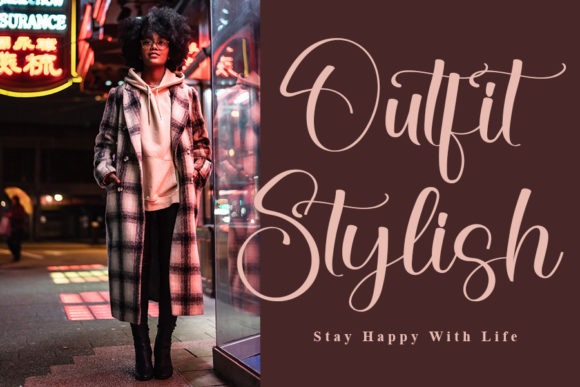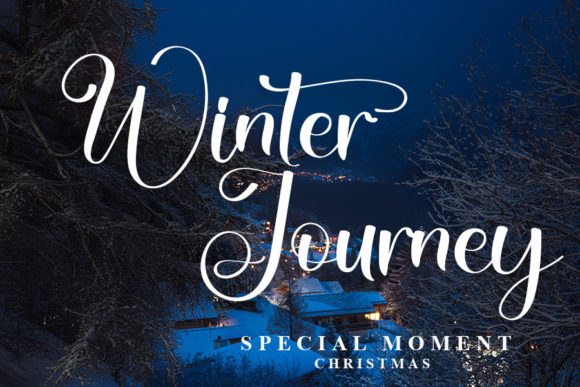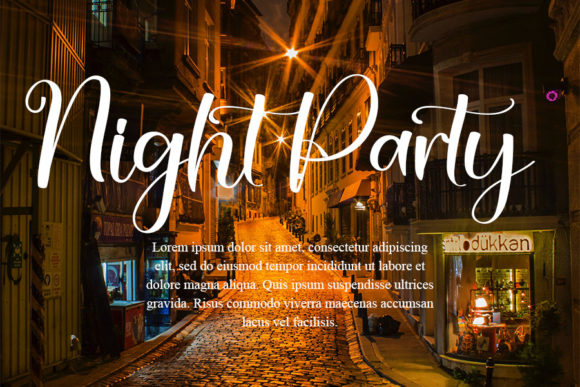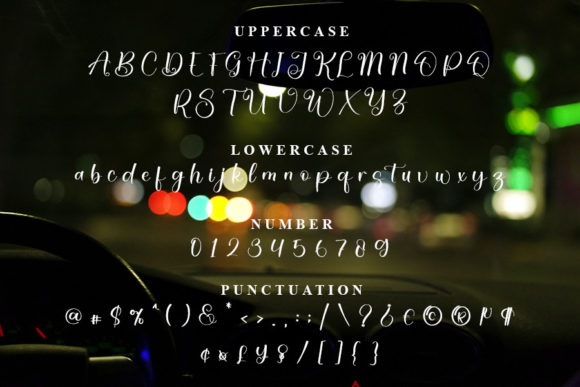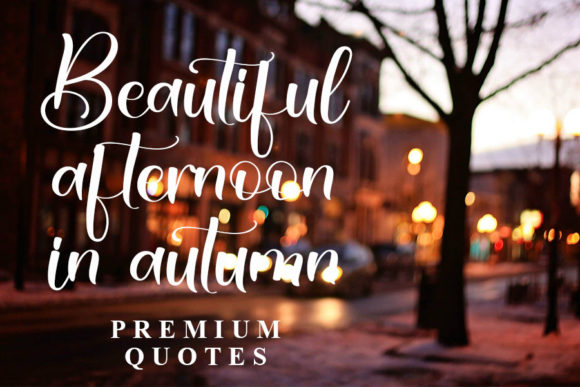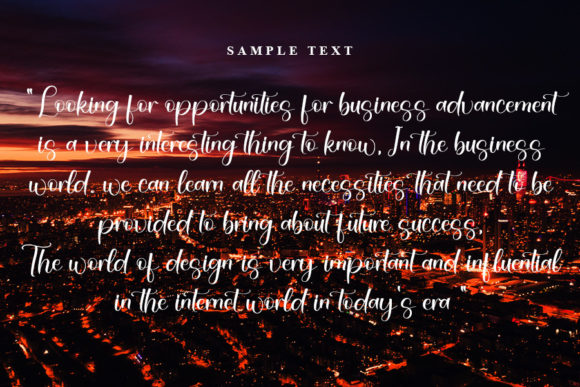
Introducing Hacktown Font: Elevate Your Designs with Timeless Elegance
In the world of typography, a font can make or break the aesthetic of a project. For designers and crafters seeking a stylish and contemporary handwritten font, Hacktown Font is an exceptional choice. Inspired by the elegance of classic calligraphy, Hacktown offers a balanced and varied design that enhances the beauty of any project.
The Inspiration Behind Hacktown Font
Hacktown Font draws its inspiration from timeless classic calligraphy, bringing a touch of sophistication and refinement to modern designs. The creators of Hacktown aimed to craft a font that not only pays homage to traditional calligraphy but also meets the demands of contemporary design. The result is a stylish handwritten font that exudes a sense of elegance and poise.
Key Features of Hacktown Font
- Contemporary Atmosphere: Hacktown Font boasts a modern and fresh feel, making it perfect for designers looking to add a touch of sophistication to their work.
- Impeccable Form: The font’s precise and clean lines ensure that it remains legible and visually appealing, even at smaller sizes.
- Balanced and Varied: Hacktown offers a range of characters and ligatures, allowing designers to create unique and engaging text that flows smoothly.
- Handwritten Style: The font’s handwritten style adds a personal touch to any project, making it ideal for use in creative and artistic endeavors.
Uses for Hacktown Font
Hacktown Font’s versatility makes it suitable for a wide range of applications, including:
- Branding and Logo Design: Create a lasting impression with Hacktown’s elegant and sophisticated design.
- Stationery and Invitations: Add a touch of luxury to your stationery and invitations with Hacktown’s refined and classic style.
- Packaging and Product Design: Elevate your product design with Hacktown’s modern and eye-catching font.
- Digital Media: Use Hacktown Font in your digital projects, such as website headers, social media graphics, and more.
Why Choose Hacktown Font?
With so many fonts available, why choose Hacktown? Here are a few compelling reasons:
- Unique and Memorable: Hacktown Font’s distinctive design ensures that your project will stand out from the crowd.
- High-Quality Design: The font’s precise lines and balanced design make it a joy to work with.
- Easy to Read: Hacktown Font’s clear and legible design makes it perfect for use in a variety of applications.
- Pair with Other Fonts: Experiment with pairing Hacktown Font with other fonts to create a unique and engaging design.
Hacktown Font is a stylish and sophisticated handwritten font that brings a touch of timeless elegance to modern designs. With its impeccable form, balanced and varied design, and contemporary atmosphere, Hacktown is an exceptional choice for designers and crafters seeking to elevate their projects. Whether you’re working on branding, stationery, packaging, or digital media, Hacktown Font is sure to make a lasting impression.